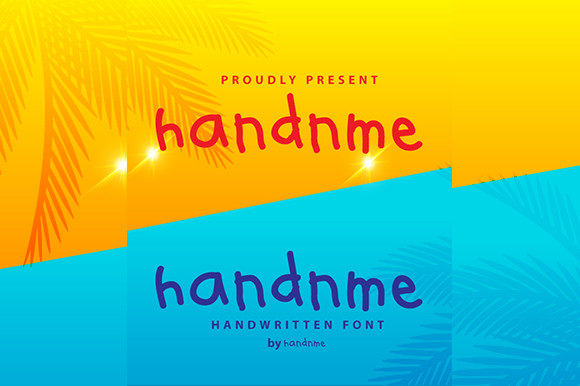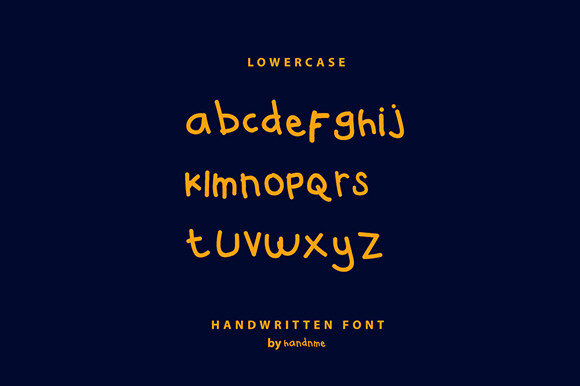
Introducing HandnMe Font: The Cute Handwritten Font to Brighten Up Your Designs
Are you tired of using the same old fonts in your designs? Look no further! HandnMe font is here to add a touch of sweetness and friendliness to your creations. This cute handwritten font is perfect for designers and crafters who want to add a personal touch to their work. In this article, we’ll dive into the world of HandnMe font, exploring its features, benefits, and uses.
What is HandnMe Font?
HandnMe font is a beautiful, handwritten font that exudes a sense of warmth and approachability. Its sweet and friendly style makes it an excellent choice for a wide range of design projects, from invitations and greeting cards to branding and packaging. This font is perfect for anyone who wants to add a personal touch to their designs and make them stand out from the crowd.
Features of HandnMe Font
So, what makes HandnMe font so special? Here are some of its key features:
- Cute and playful style: HandnMe font has a unique, handwritten style that’s both cute and playful. It’s perfect for designs that require a touch of whimsy and fun.
- Sweet and friendly vibe: This font has a warm and welcoming feel to it, making it perfect for designs that require a personal touch.
- High-quality design: HandnMe font is designed with high-quality craftsmanship in mind. Its intricate details and smooth lines make it a joy to use.
- Versatile: This font is versatile and can be used for a wide range of design projects, from digital designs to print materials.
Benefits of Using HandnMe Font
So, why should you use HandnMe font in your designs? Here are some of the benefits:
- Adds a personal touch: HandnMe font adds a personal touch to your designs, making them more relatable and engaging.
- Stand out from the crowd: This font is unique and playful, making it perfect for designs that require a bit of flair.
- Easy to read: Despite its playful style, HandnMe font is easy to read, making it perfect for designs that require a clear message.
- Time-saving: With HandnMe font, you can create beautiful designs in no time. Its high-quality design means you don’t have to spend hours crafting the perfect font.
Uses of HandnMe Font
So, what can you use HandnMe font for? The possibilities are endless! Here are some ideas to get you started:
- Invitations and greeting cards: HandnMe font is perfect for creating beautiful invitations and greeting cards that require a personal touch.
- Branding and packaging: This font is great for branding and packaging designs that require a unique and playful style.
- Digital designs: HandnMe font can be used for a wide range of digital designs, from social media graphics to website headers.
- Crafting and DIY projects: This font is perfect for crafters and DIY enthusiasts who want to add a personal touch to their projects.
In conclusion, HandnMe font is a beautiful, handwritten font that’s perfect for designers and crafters who want to add a personal touch to their work. Its sweet and friendly style makes it an excellent choice for a wide range of design projects. With its high-quality design, versatility, and ease of use, HandnMe font is a must-have for anyone who wants to create beautiful designs that stand out from the crowd.